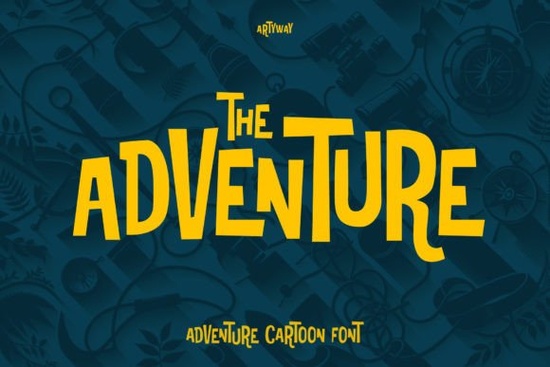
Finding the right typography for a project that needs energy and fun can be tricky. You want something that catches the eye without looking messy. The Adventure Font is designed specifically for this purpose. It brings a sense of playfulness and excitement to your work, making it a solid choice for children's content, playful logos, and dynamic posters. Each letter is crafted with a unique personality, ensuring your text stands out with a distinctive charm. If you are looking to infuse your designs with creativity, this typeface offers the bold, funny characters needed to engage your audience effectively.
What makes this typeface stand out from others?
When selecting a font for creative projects, personality matters. Many standard sans-serif options feel too rigid or corporate. This cartoon-style typeface breaks that mold by incorporating unique shapes into every character. It supports multiple languages and includes special characters, making it versatile for a wide range of uses. Unlike more serious options, such as the Bouldy Font, which offers a sturdy and clean look, this choice leans heavily into fun. It is ideal when your goal is to entertain rather than just inform.
Designers often need a library that covers different moods. While some projects require a sketchy or hand-drawn feel, like what you might find with the Norfleet Sketch style, others need full-bodied letters that pop off the page. The bold nature of this adventure-themed typeface ensures readability even at smaller sizes, which is crucial for merchandise or digital graphics. It balances whimsy with functionality, so your message remains clear despite the playful design elements.
Where should you use playful typography?
Knowing where to apply these styles is key to good design. This typeface shines in contexts aimed at younger audiences or lighthearted brands. Think about packaging for toys, labels for party supplies, or titles for educational videos. If you are working on a project that needs a warmer, organic feel, you might consider pairing it with something like the Sunflower Font. The contrast between a structured cartoon font and a softer, rounded alternative can create a visually interesting hierarchy in your layout.
Small businesses and print-on-demand sellers can benefit greatly from adding this to their arsenal. T-shirts, mugs, and stickers often rely on text-heavy designs where the font does the heavy lifting. For more formal branding needs, you might look at classical options like the Bourgueil Font, but for casual merchandise, the energy here is unmatched. It helps products feel approachable and friendly, which can influence purchasing decisions positively.
Does it support multiple languages?
Yes, versatility is a major strength of this tool. It includes extended character sets that support multiple languages, allowing you to reach a broader audience. This is essential for sellers operating in international markets or designers working on multicultural campaigns. You do not have to worry about missing glyphs or broken text when expanding your project scope. For more technical details on typography standards, you can refer to external resources like typography guidelines to ensure your text remains legible across different platforms.
Quick Checklist for Using Playful Fonts
- Check Legibility: Ensure the bold characters remain readable at small sizes on mobile devices.
- Match the Mood: Use this style for fun projects, not serious corporate documents.
- Pair Carefully: Combine with simple sans-serifs for body text to avoid visual clutter.
- Test Languages: Verify that special characters display correctly for your target audience.